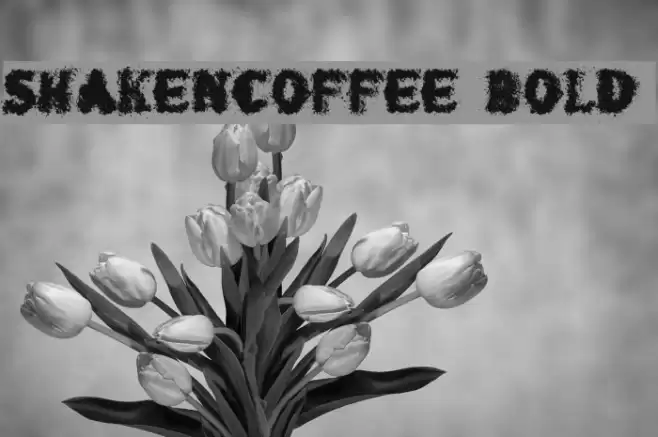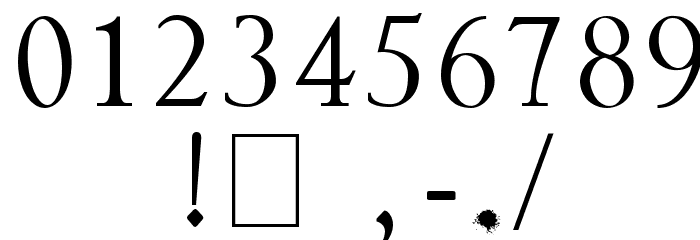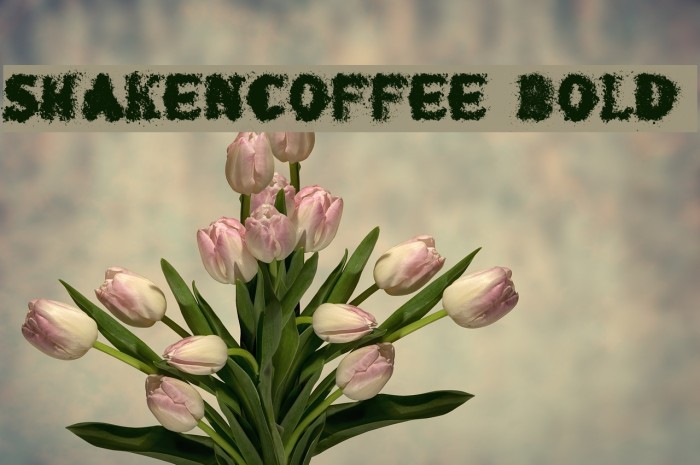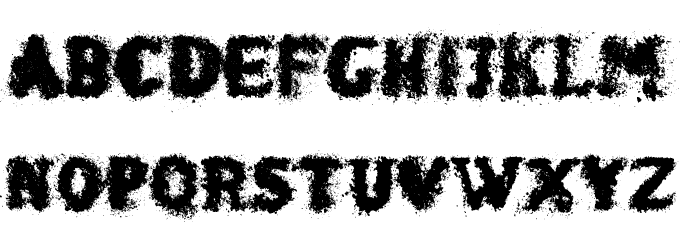
shaken_coffee Bold Font
shaken_coffee Bold Description
This font features a bold and textured appearance, reminiscent of a distressed or grunge style. The uppercase letters are heavily stylized with a rough, speckled texture that gives them a unique, weathered look. The numbers are more traditional, with a clean and classic serif style, contrasting sharply with the uppercase letters. The special characters maintain the serif style, providing a cohesive look with the numbers. This combination of distressed uppercase letters and clean numbers creates a dynamic and versatile font.
A bold, textured font with distressed uppercase letters and classic serif numbers from Distorted Eroded fonts.
- Proposed Projects: Ideal for projects requiring a bold statement, such as posters, album covers, or branding for edgy or alternative products.
- Overall Style: Modern, Grunge